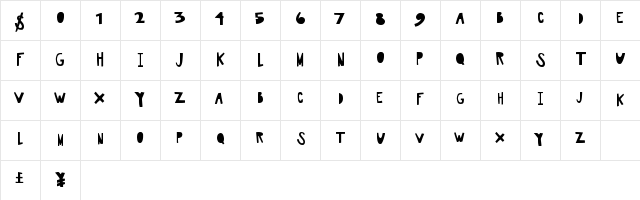
AwesomePlay Regular
| Foundry | Xerographer Fonts |
| Designer | Xerographer Fonts Max Infeld |
Design Context for AwesomePlay Typeface
AwesomePlay is a composed and adaptable typeface that performs quietly and consistently across a wide range of design contexts.